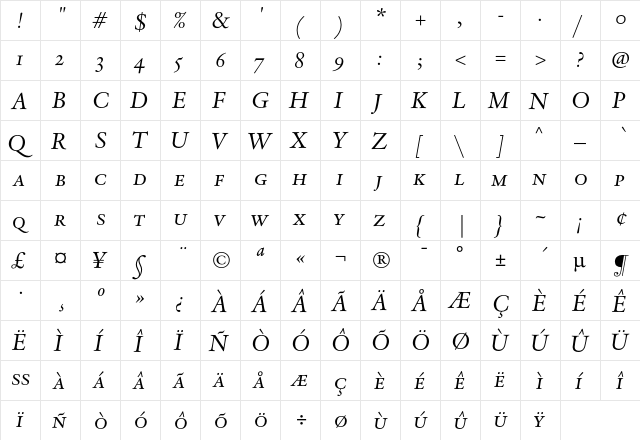
DTLVandenKeereD CapsItalic
Design Context for DTLVandenKeereD Typeface
DTLVandenKeereD takes a measured approach to typography — its balanced proportions and neutral character make it a reliable workhorse for both digital and print work. The dynamic lean of this cut emphasises speed and emphasis in any layout.
Pro Tip: Use DTLVandenKeereD for emphasis, pull quotes, and subheadings where its slanted energy can add rhythm to the layout.